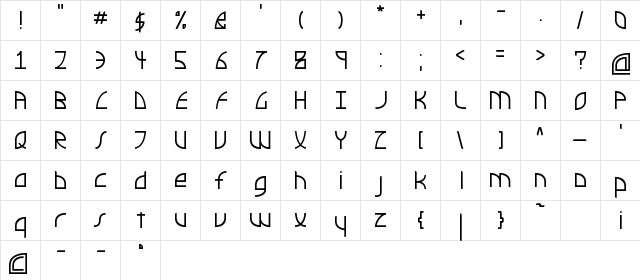
Airstream Futuropolis Regular
| Designer | Michael Moss |
Design Context for Airstream Futuropolis Typeface
Airstream Futuropolis channels digital-age aesthetics through its sharp, structured letterforms — ideal for brands that want to signal innovation.
Pro Tip: Use Airstream Futuropolis in combination with a neutral sans for body text. Let it define the brand voice in headlines while keeping reading comfortable elsewhere.